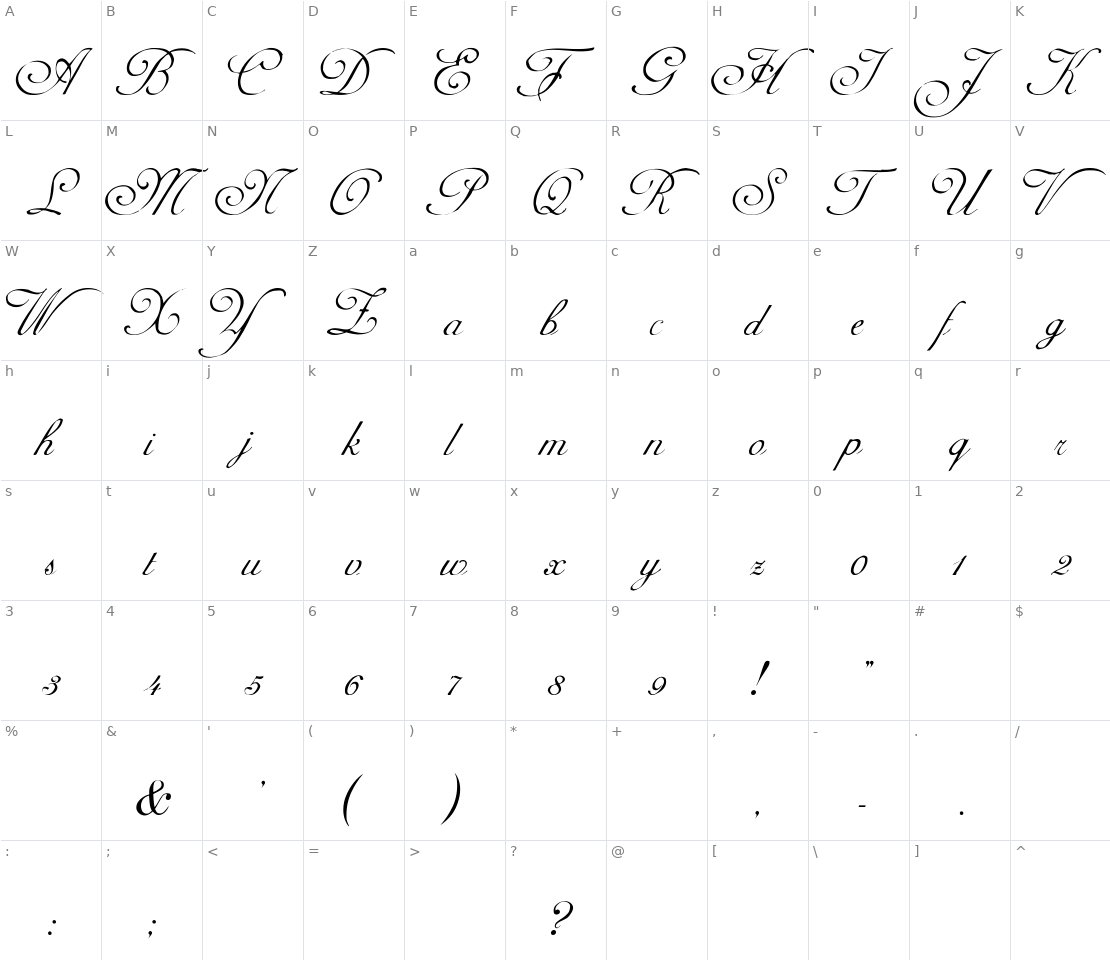
AdineKirnberg Script is a thin, ornate calligraphic face by David Rakowski that carries the flourish and formality of traditional copperplate penmanship. The delicate strokes and sweeping connectors give it a genuinely handwritten elegance, making it a natural choice for wedding invitations, formal stationery, and luxury branding. It needs room to breathe, so keep it at larger sizes where the fine details won't collapse.